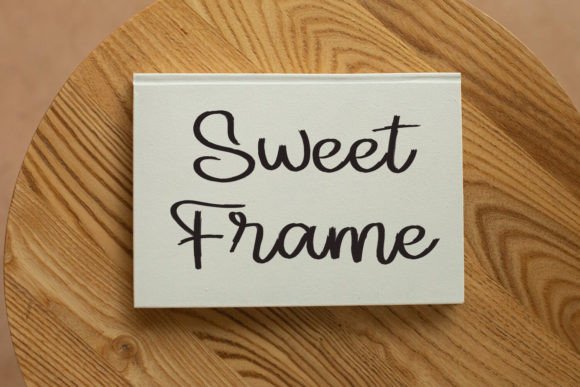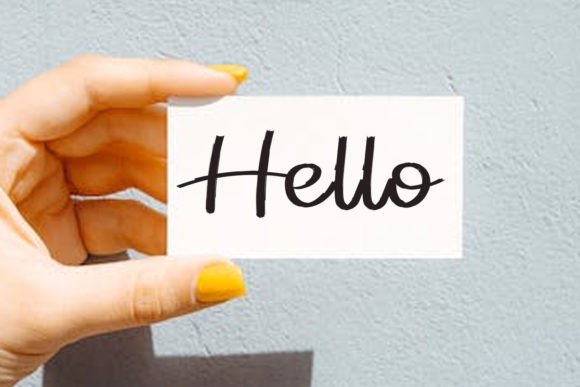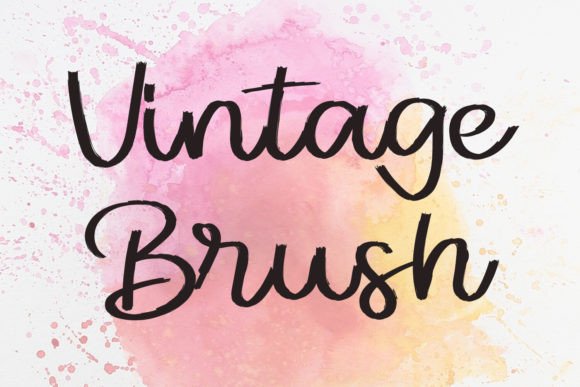
Have you ever stared at a blank page, a blank screen, or a blank canvas, waiting for inspiration to strike? It’s a moment we’ve all been in, and it’s exactly when we need a little help from our creative friends. For designers, the right font can be the game-changer that brings a project to life. And today, we’re excited to introduce you to the Barbie Brush Font, a fresh and beautiful typeface that’s perfect for a variety of design purposes.
This lovely font is great for creating stunning visuals for YouTube banners, cover logo mockups, wedding invitations, ID cards, flyers, and so much more. With the Barbie Brush Font, you’ll be able to add a touch of elegance and sophistication to your designs, making them truly stand out. Whether you’re a seasoned designer or just starting out, this font is a valuable addition to your toolkit, and we can’t wait to share its features with you.
Key Features of Barbie Brush Font
- Font Style: Hand-drawn, Brush Script Font
- Unique Characteristics: Features a whimsical, playful feel with subtle brush strokes and a sense of movement
Barbie Brush Font Review
Overall, I think the Barbie Brush Font is a sweet addition to any design project. It’s ✨ easy to use and has a playful, hand-drawn feel that’s perfect for kids’ content, crafts, or anything else that needs a touch of whimsy.
One of the things I love about this font is its ✨ high level of customization. You can adjust the brush strokes, color, and texture to fit your design needs. This makes it a great choice for projects where you need a lot of flexibility.
- Easy to use and customize
- Playful, hand-drawn feel
- High level of flexibility
- ⚠️ Limited in terms of legibility, especially at smaller font sizes
- ⚠️ May not be suitable for formal or professional content
Overall, I think the Barbie Brush Font is a fun and creative choice for designers who want to add some personality to their projects. While it may not be the best choice for every project, it’s a great option for those who need a playful, hand-drawn feel.
The Barbie Brush Font is perfect for creating playful and whimsical designs. Here are a few tips to get the most out of it:
- Use the font for headings and titles to add a touch of elegance.
- Combine the font with bold colors and graphics to create eye-catching designs.
- Experiment with different font sizes and styles to add depth and visual interest.
The Barbie Brush Font is ideal for:
- Choose a selection of inspiring quotes and type them out in the Barbie Brush Font.
- Apply a watercolor effect to the text using a digital painting software or a graphics editor.
- Add delicate illustrations and floral patterns to enhance the whimsical feel.
- Use pastel colors to create a soft and dreamy atmosphere.
- Experiment with different brush styles and textures to add depth and interest.
- Balance the delicate illustrations with negative space to avoid overwhelming the design.
- Type out the brand name or initials in the Barbie Brush Font.
- Experiment with different color combinations and patterns to create a bold and eye-catching design.
- Add graphics and illustrations that reflect the brand’s personality and style.
- Use a limited color palette to create a cohesive and sophisticated look.
- Experiment with different typography styles and combinations to add visual interest.
The Barbie Brush Font is a handwritten, script font with a playful and feminine touch. It features flowing connections and subtle flair at the ends of the letters, giving it a distinctive and whimsical feel.
Exploring the Barbie Brush Font
Project 1: Whimsical Watercolor Quotes
Create a set of beautifully designed watercolor-style quotes using the Barbie Brush Font. This project combines the elegant font with hand-painted watercolor effects and delicate illustrations.
Project 2: Fashionable Logo Design
Use the Barbie Brush Font to create a stylish and feminine logo for a fashion brand. This project combines the elegant font with bold graphics and colorful patterns.